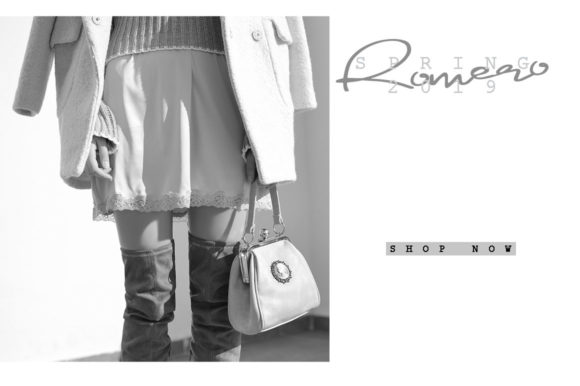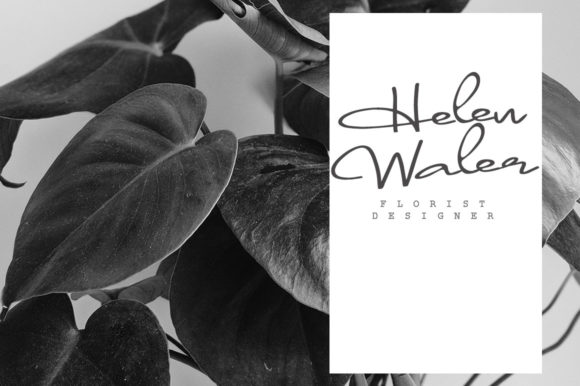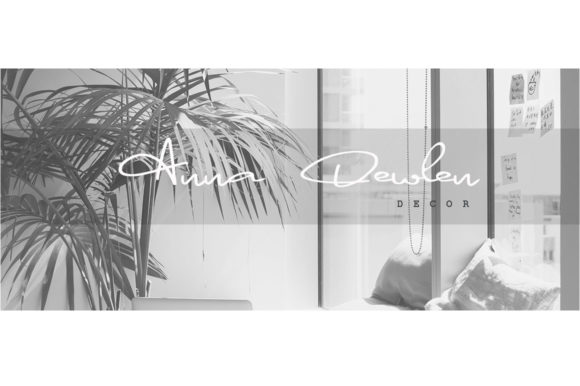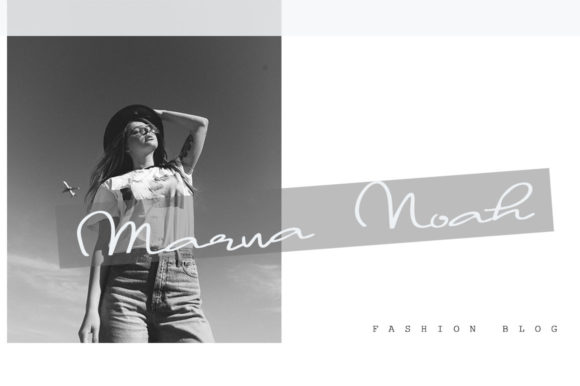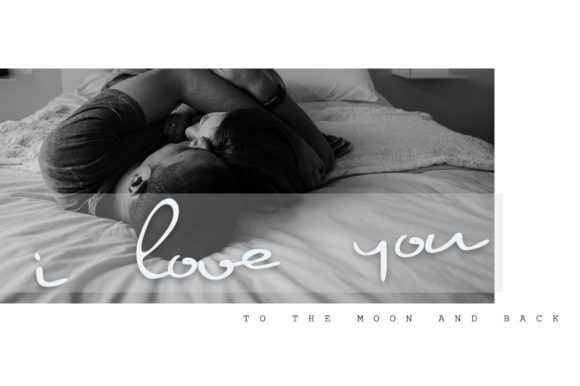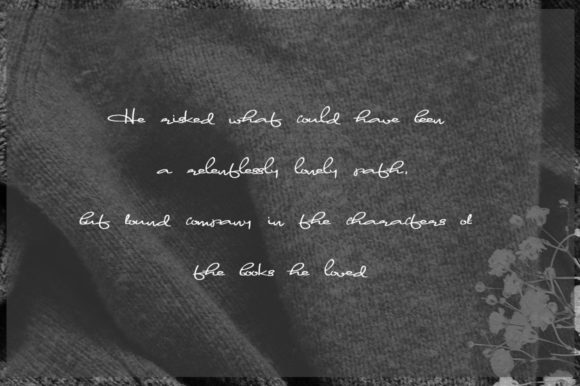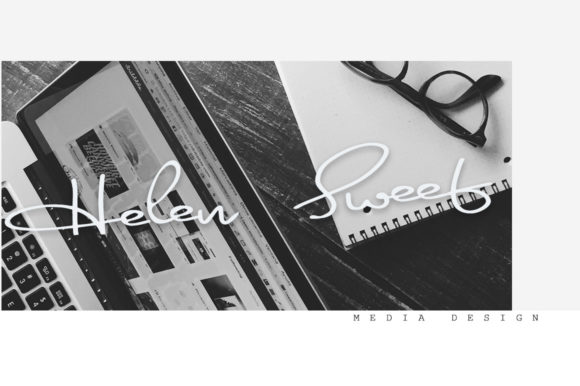
Nolet Font
About Nolet Font
The Nolet is an attentively written script font. It includes gentle curves and is perfect for adding an elegant touch to your lettering projects.